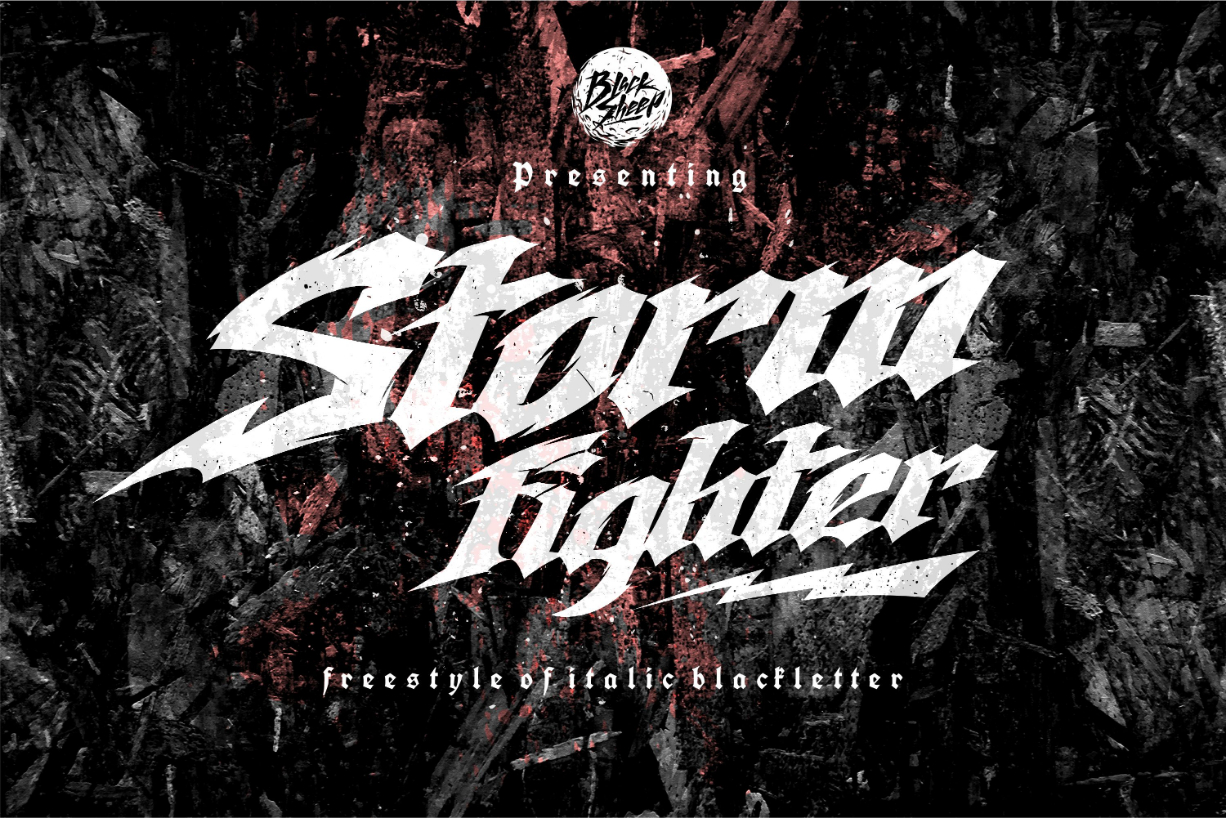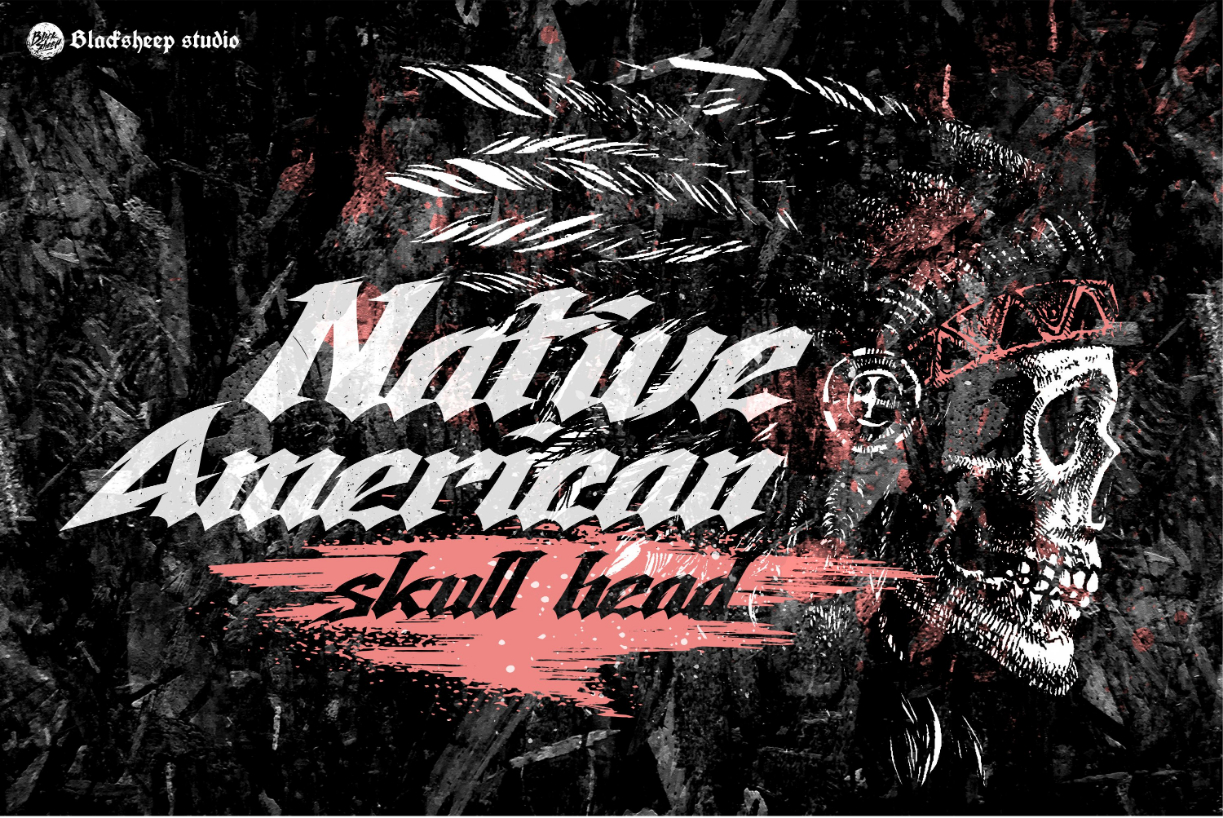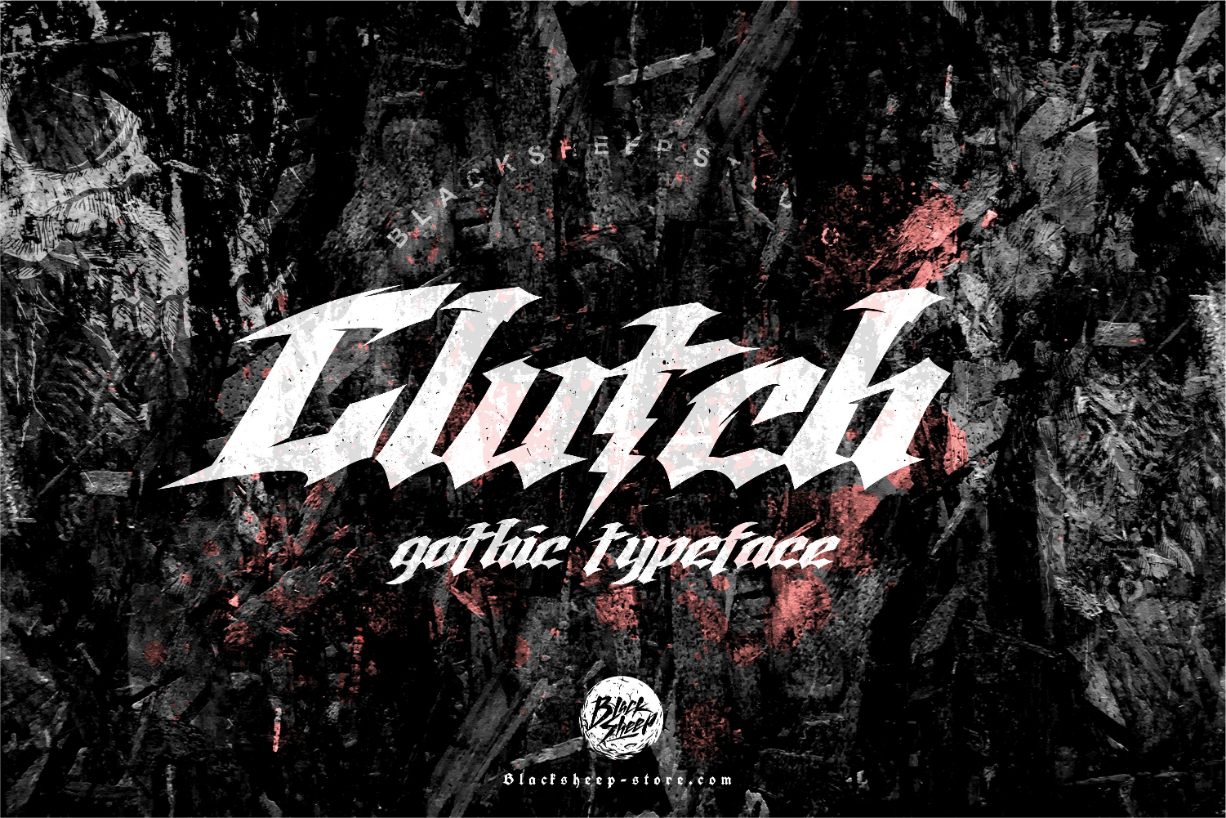
About Storm Fighter Font
Storm fighter is a freestyle blackletter font. It features a gothic and mysterious style. This font is perfect for horror themes, tattoos, shirt designs, sword action, action game covers, logos & branding, product designs, labels, and much more!